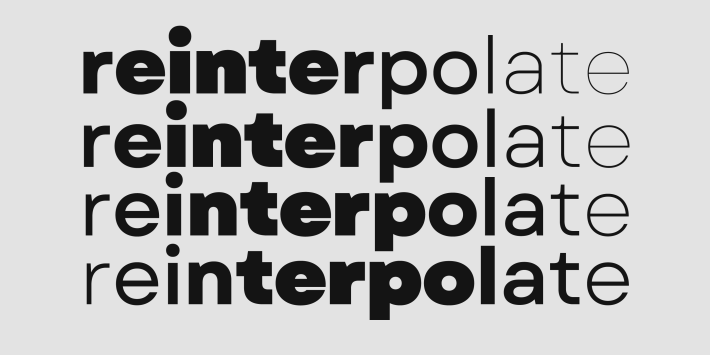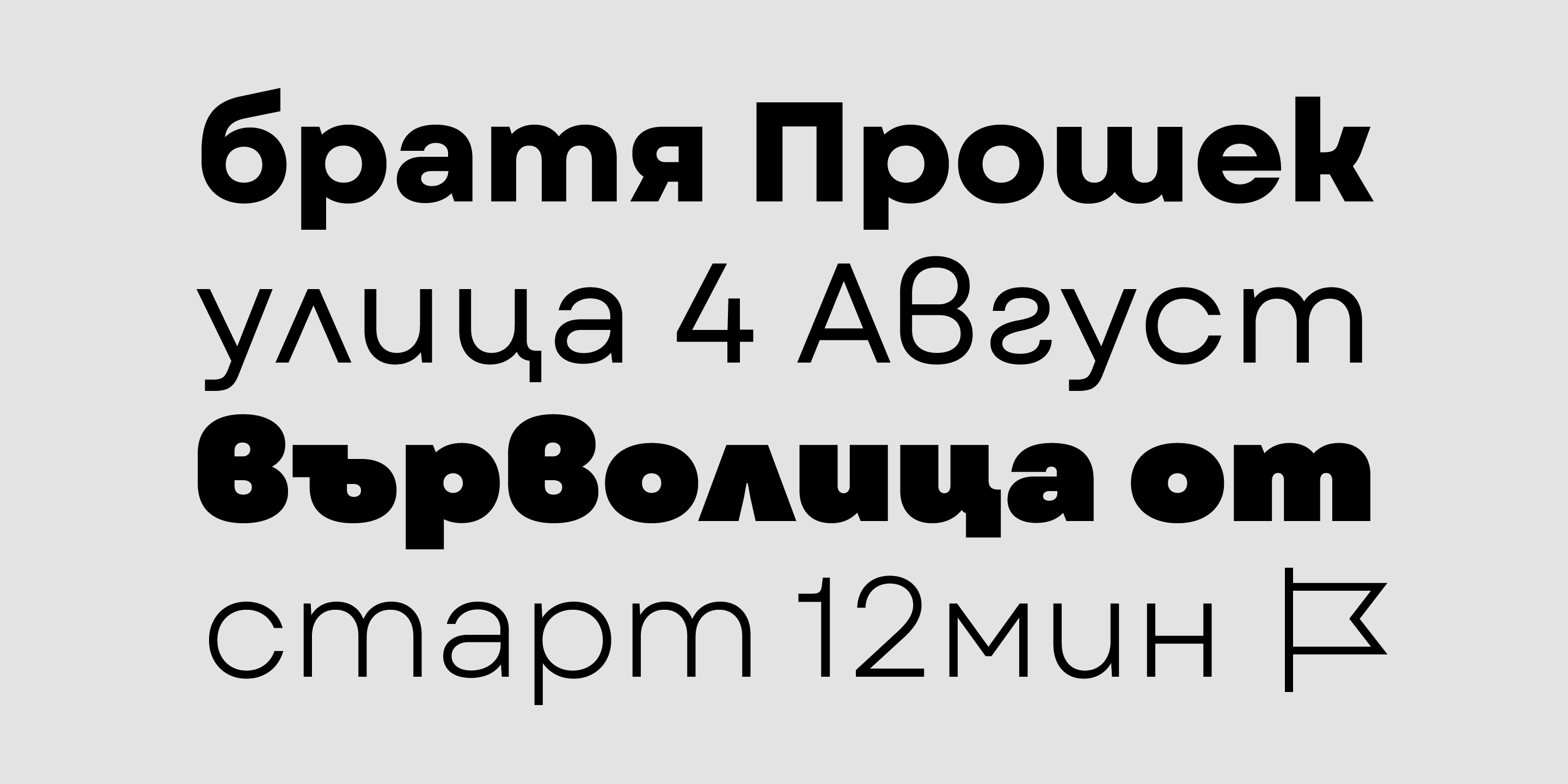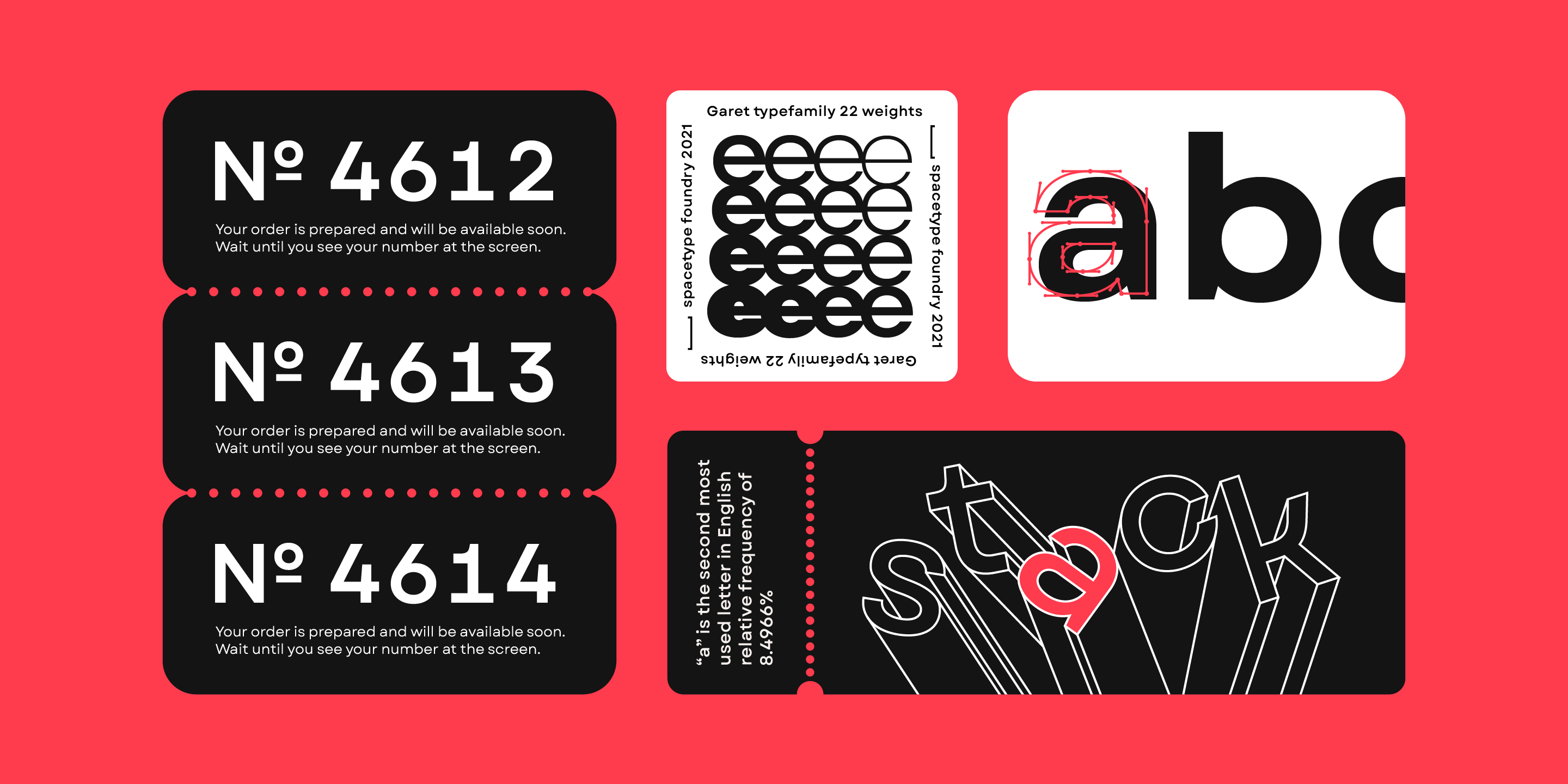
Garet
- Type Forward
- sans serif
Тhe wide variety of weights, characters, and additional features allows Garet to be implemented equally well both in print and on-screen media.
Designed by: | Type Forward | |
Classification: | Sans Serif | |